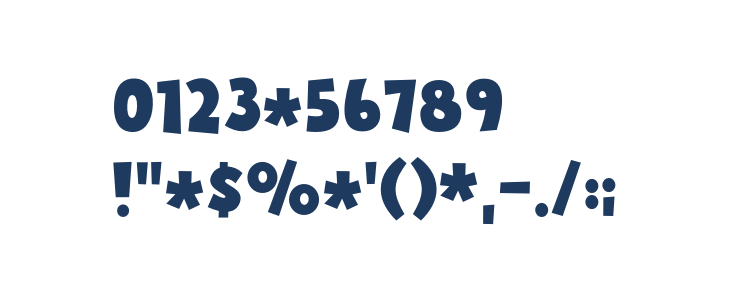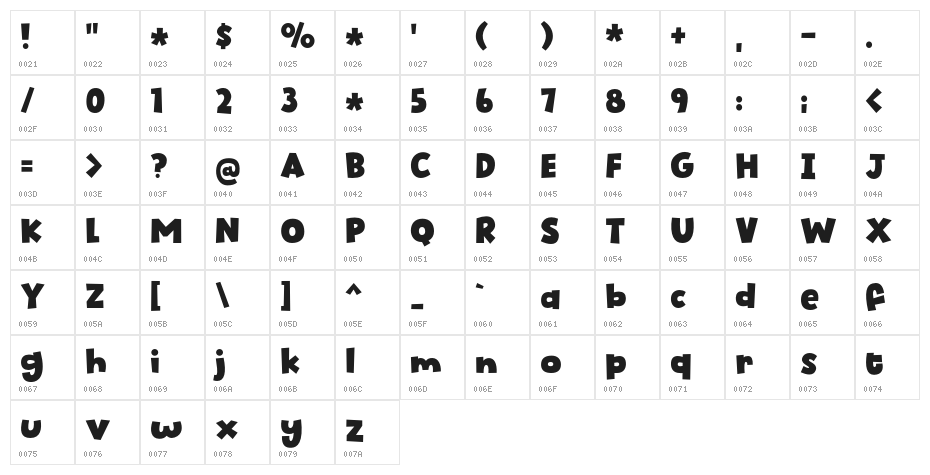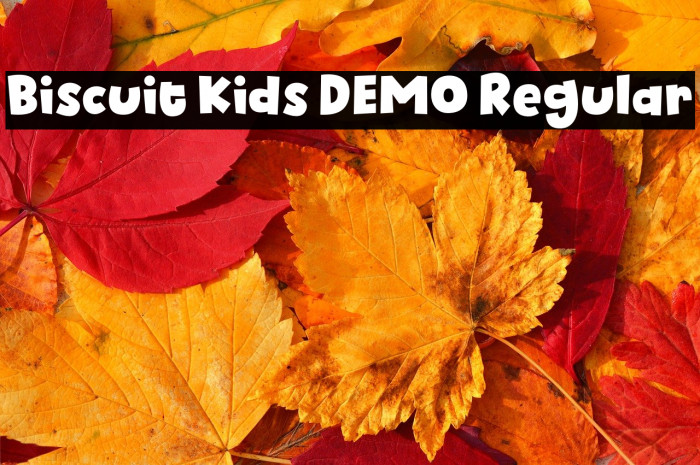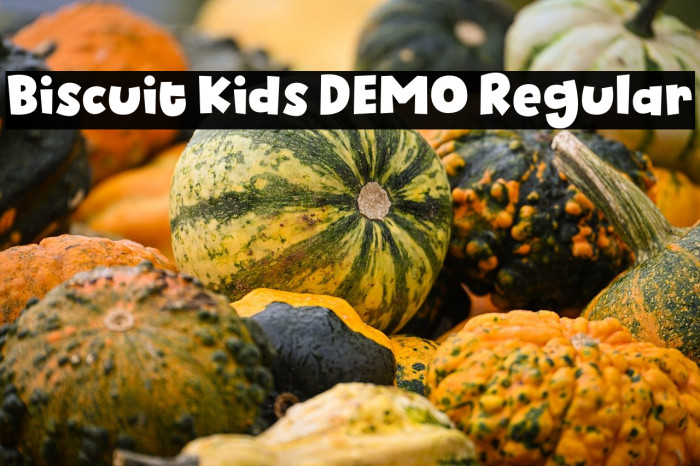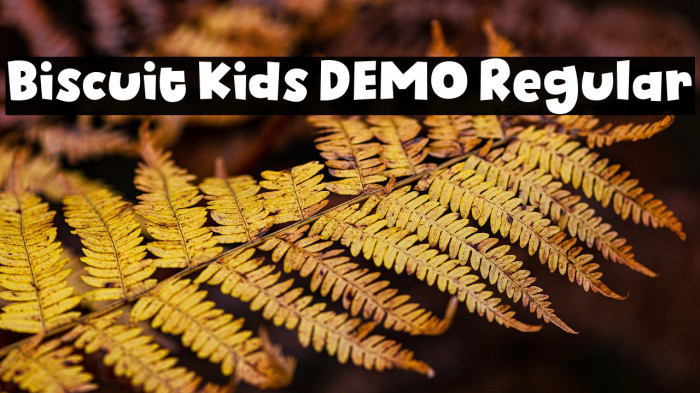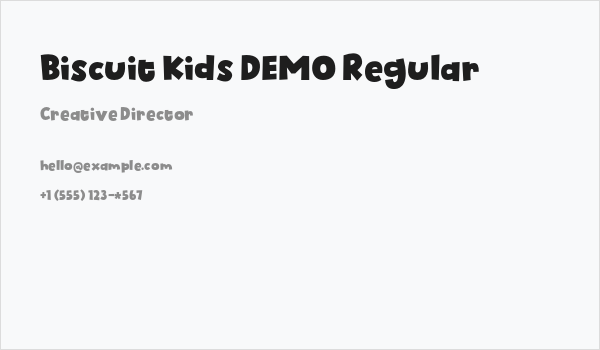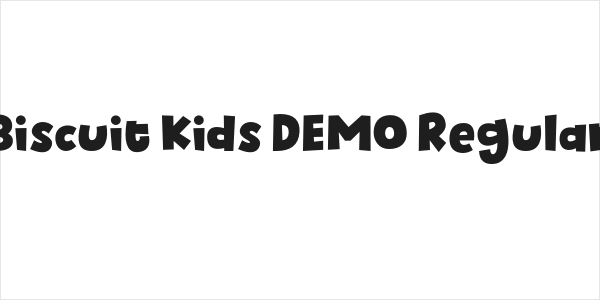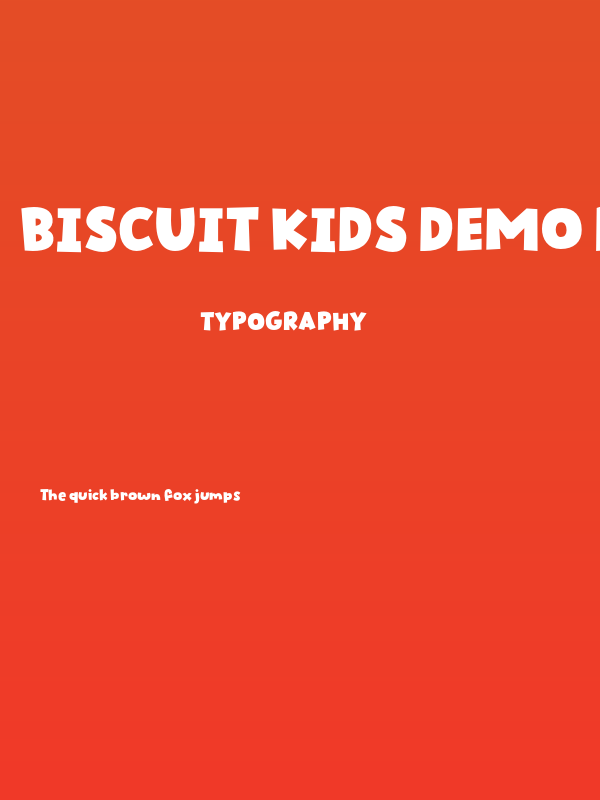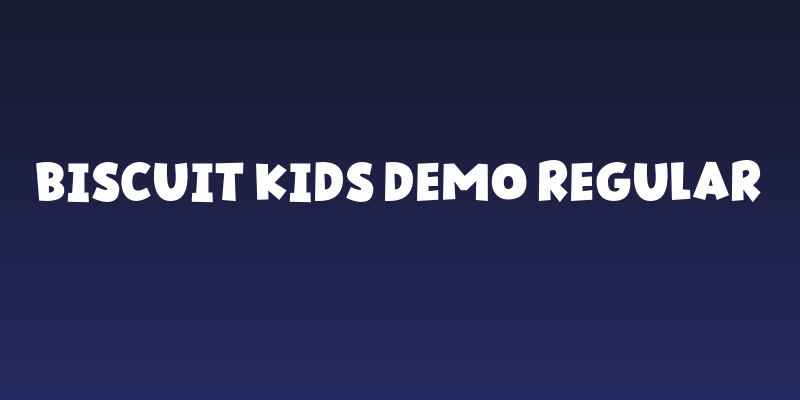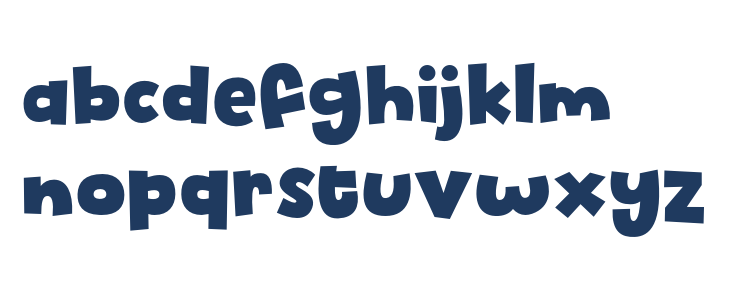
Biscuit Kids DEMO Regular Font
Biscuit Kids DEMO Regular Description
This playful and whimsical font features bold, rounded characters with a slightly irregular and bouncy baseline, giving it a fun and energetic appearance. The letters are thick and substantial, making them highly legible and eye-catching. The font's style is reminiscent of children's handwriting, with a touch of cartoonish charm that adds a sense of joy and creativity. The uppercase and lowercase letters maintain a consistent style, while the numbers and special characters are designed to match the overall playful theme. This font is perfect for projects that require a lively and youthful vibe.
Overall StylePlayful
Proposed ProjectsIdeal for children's books, educational materials, playful branding, and toy packaging.